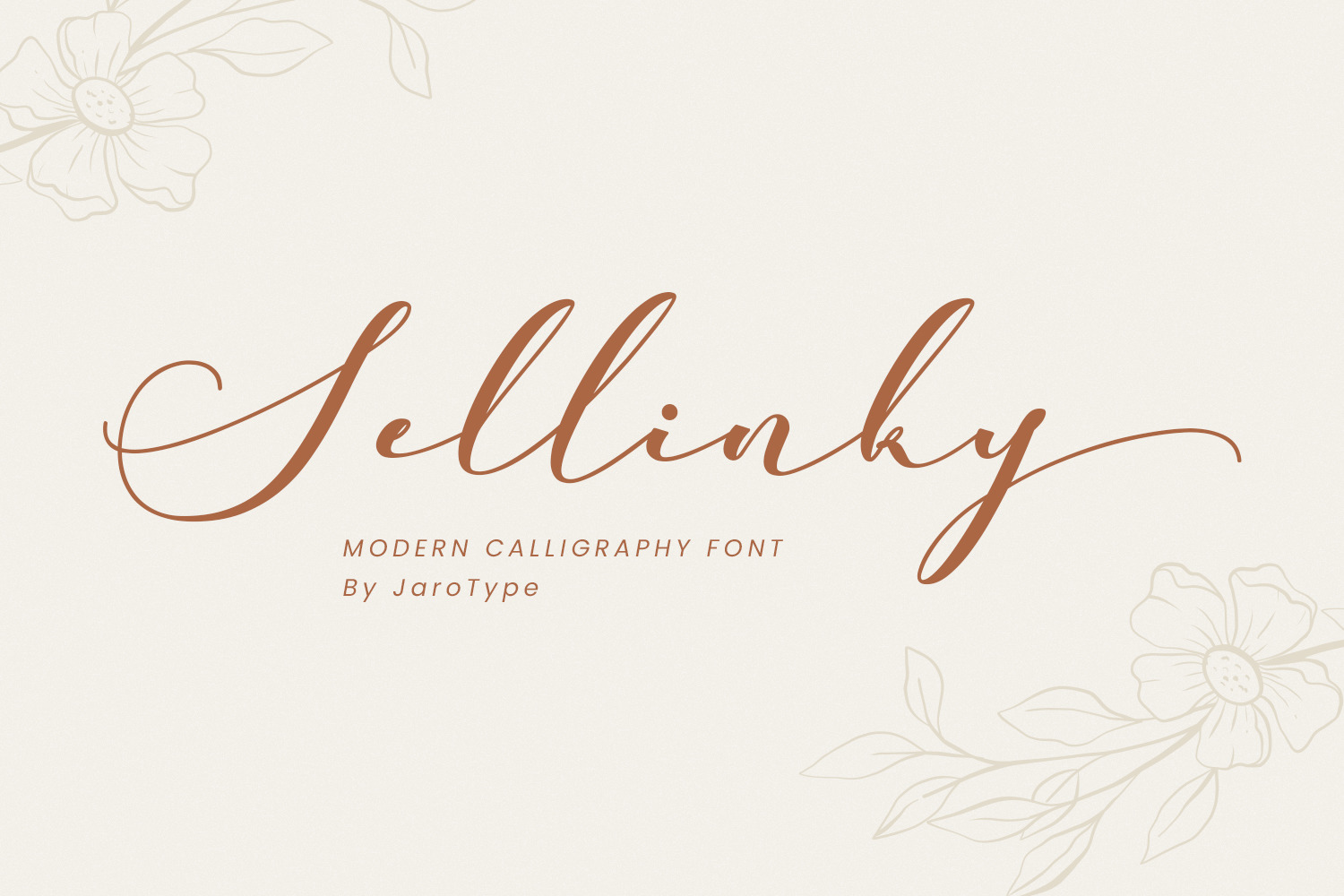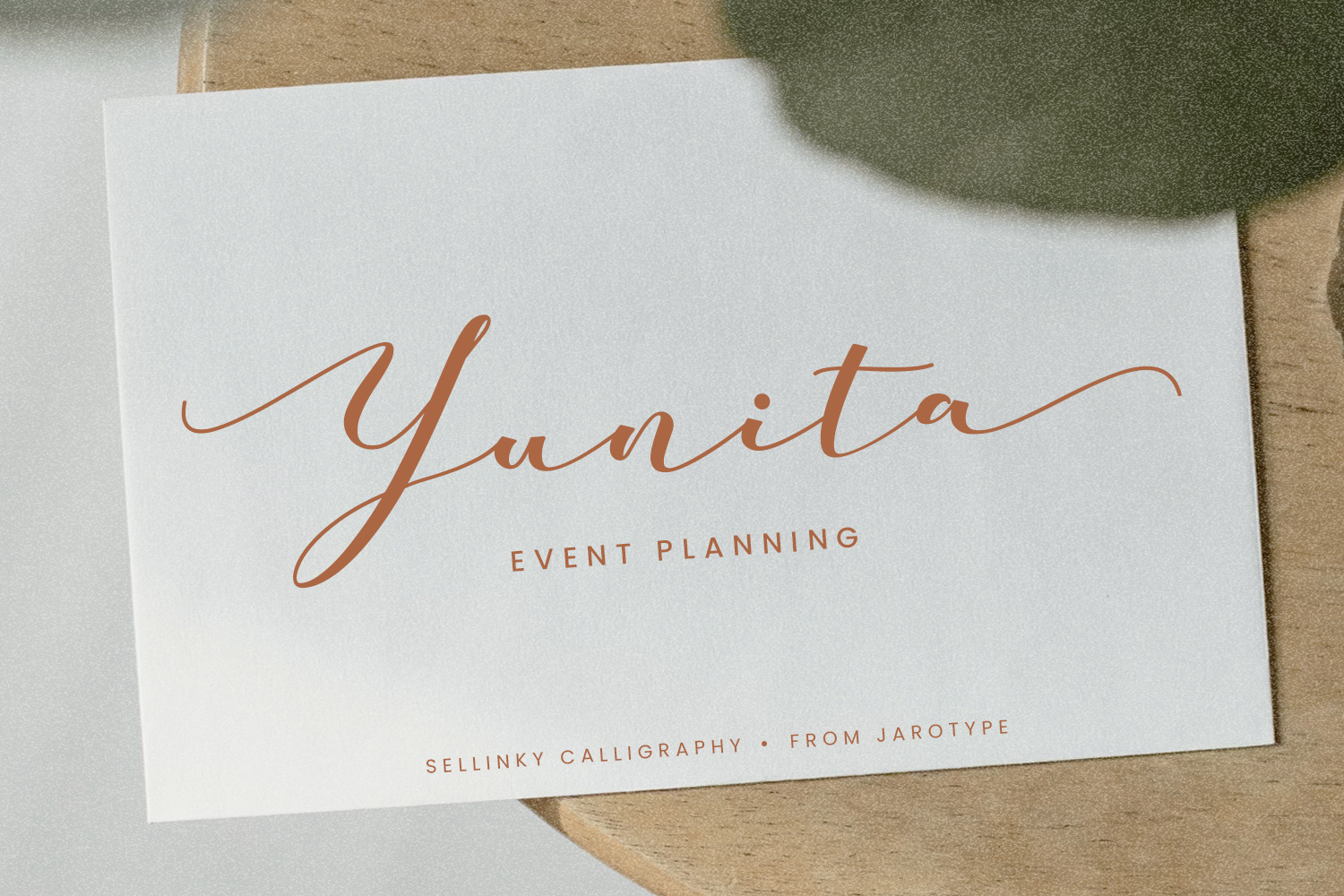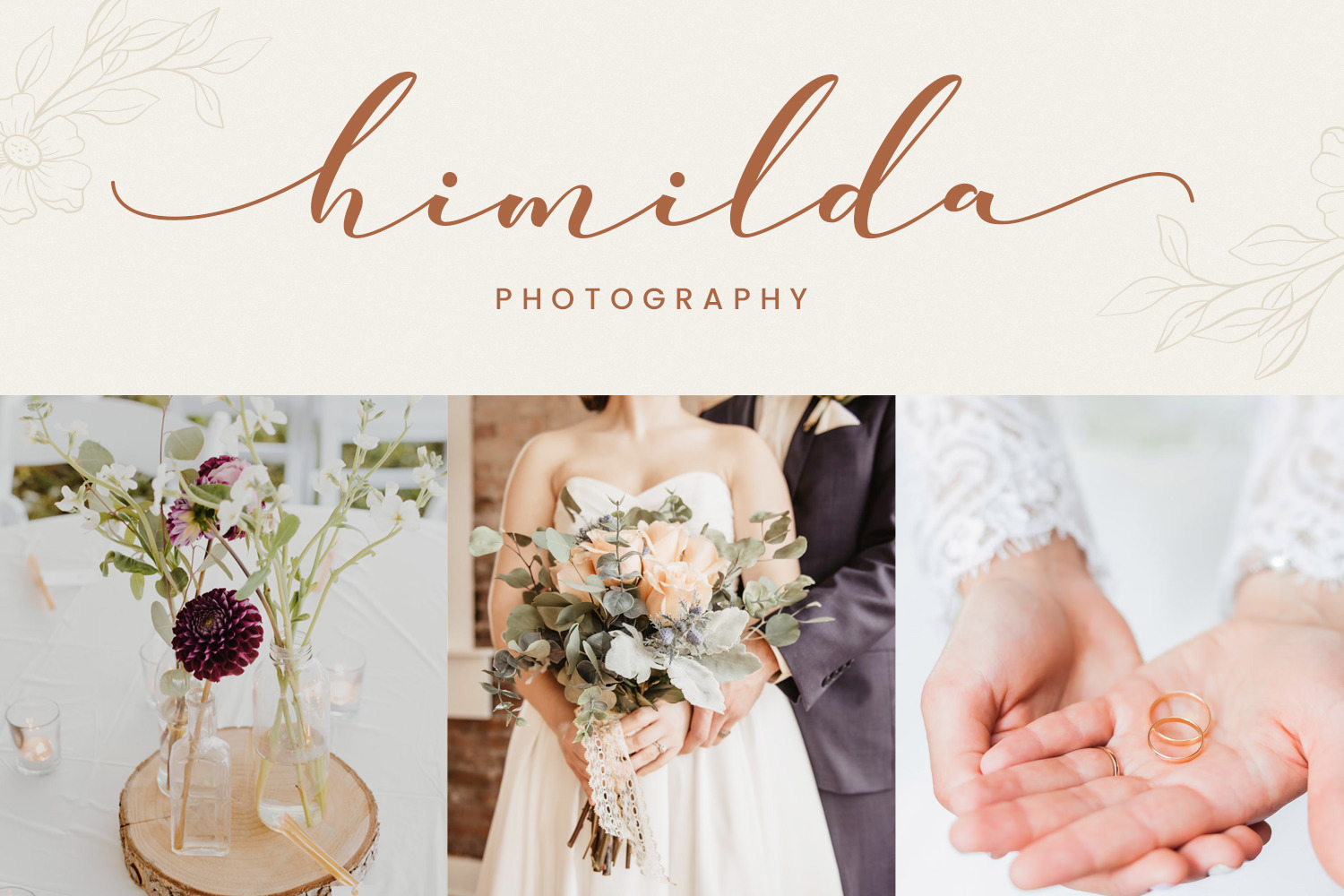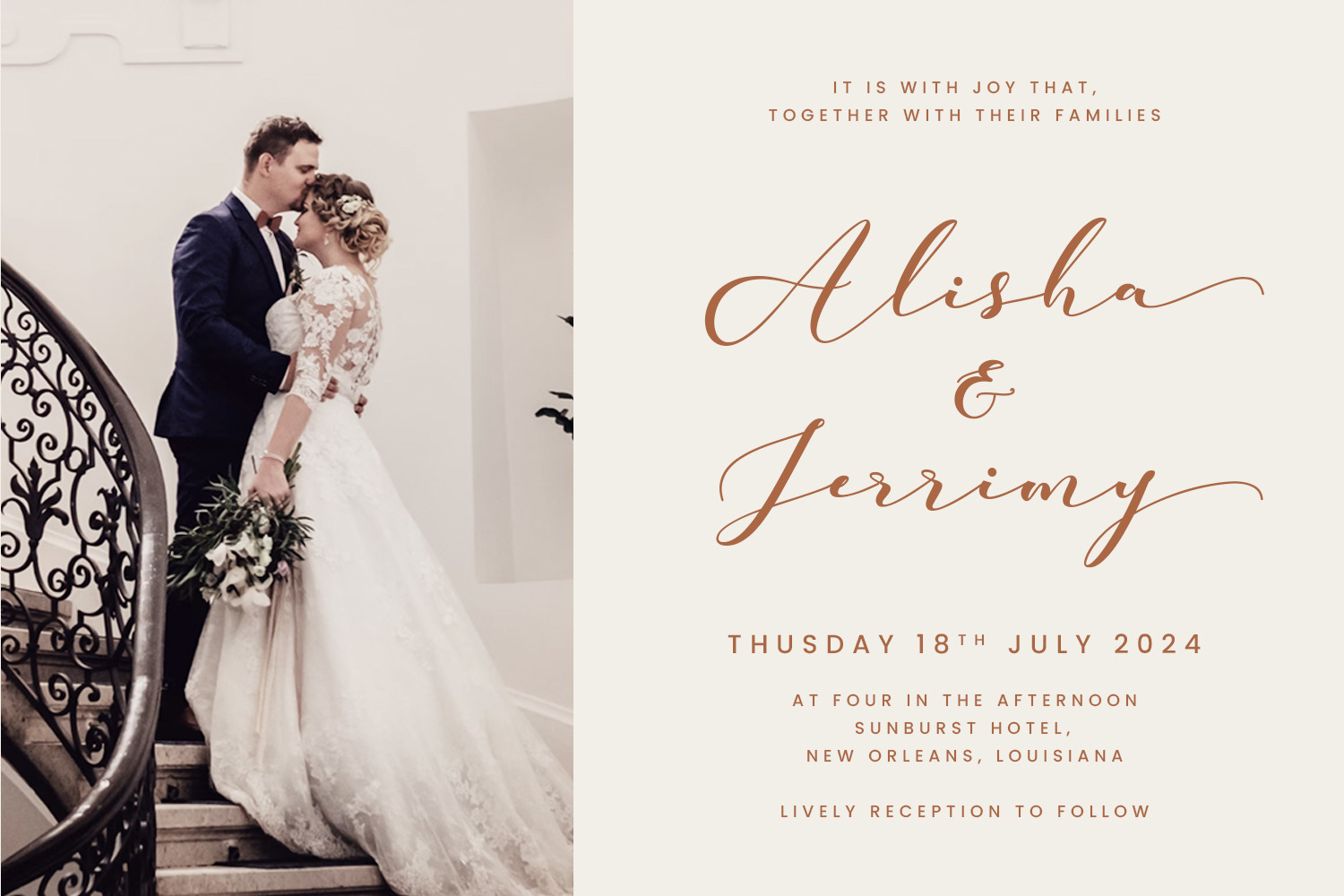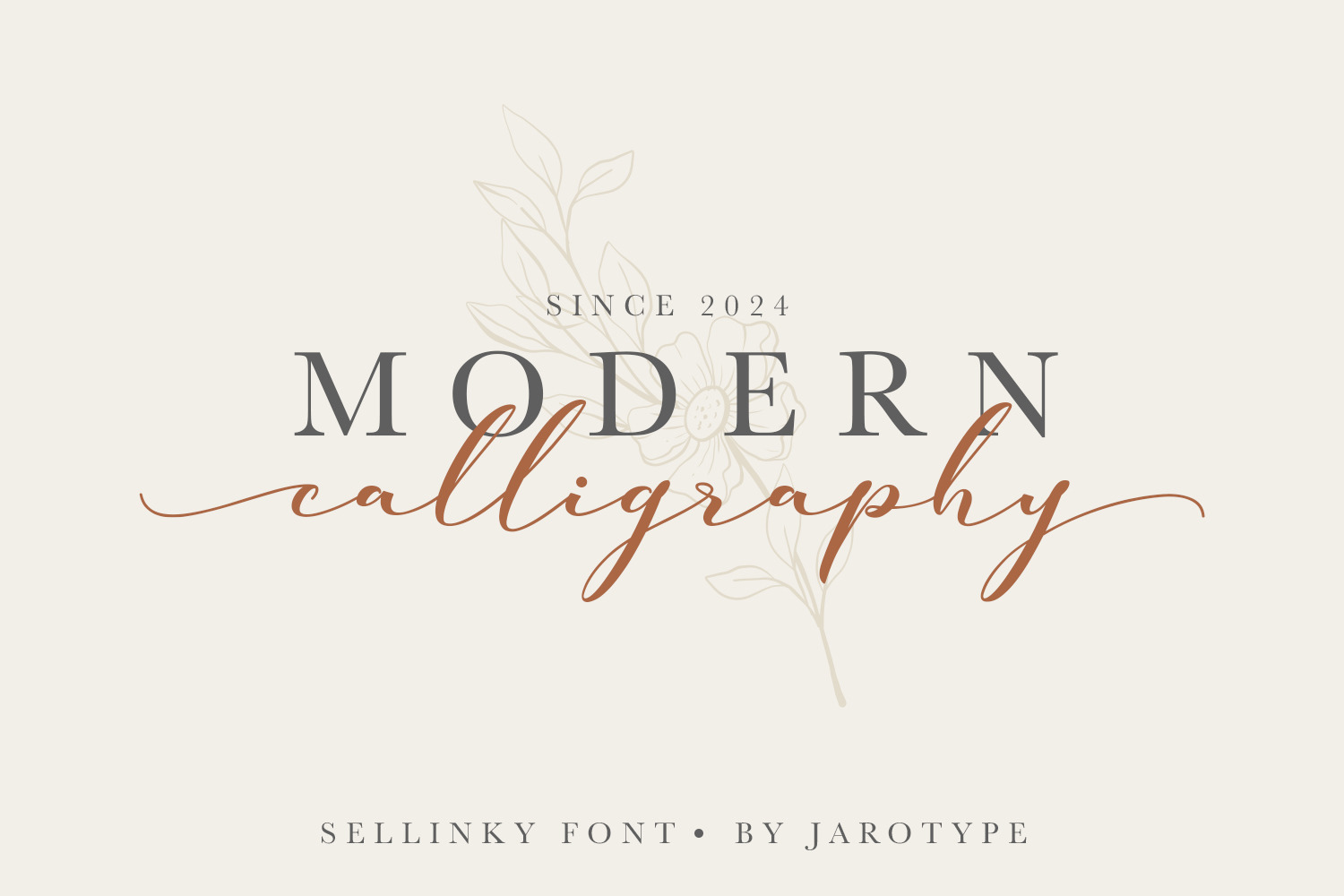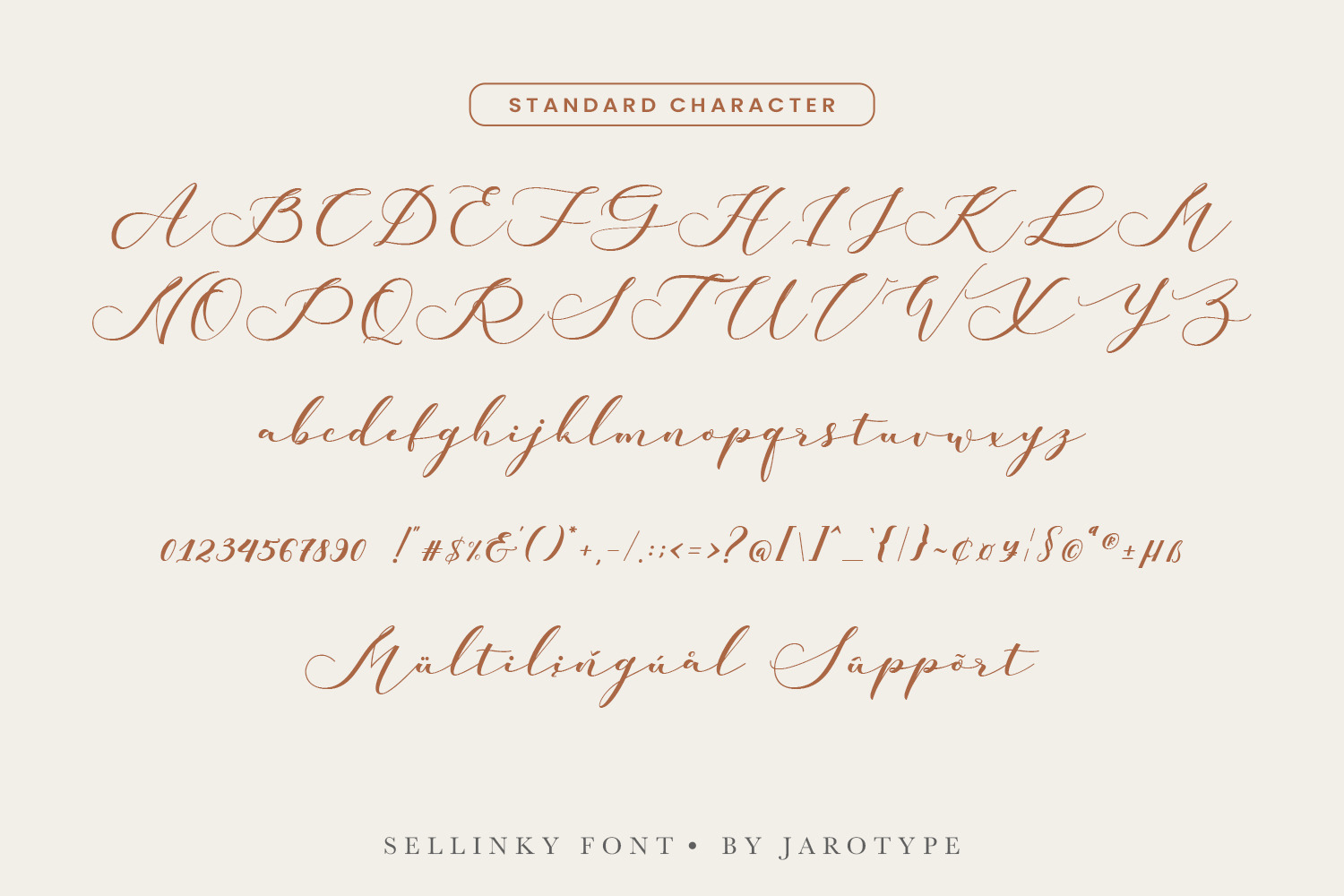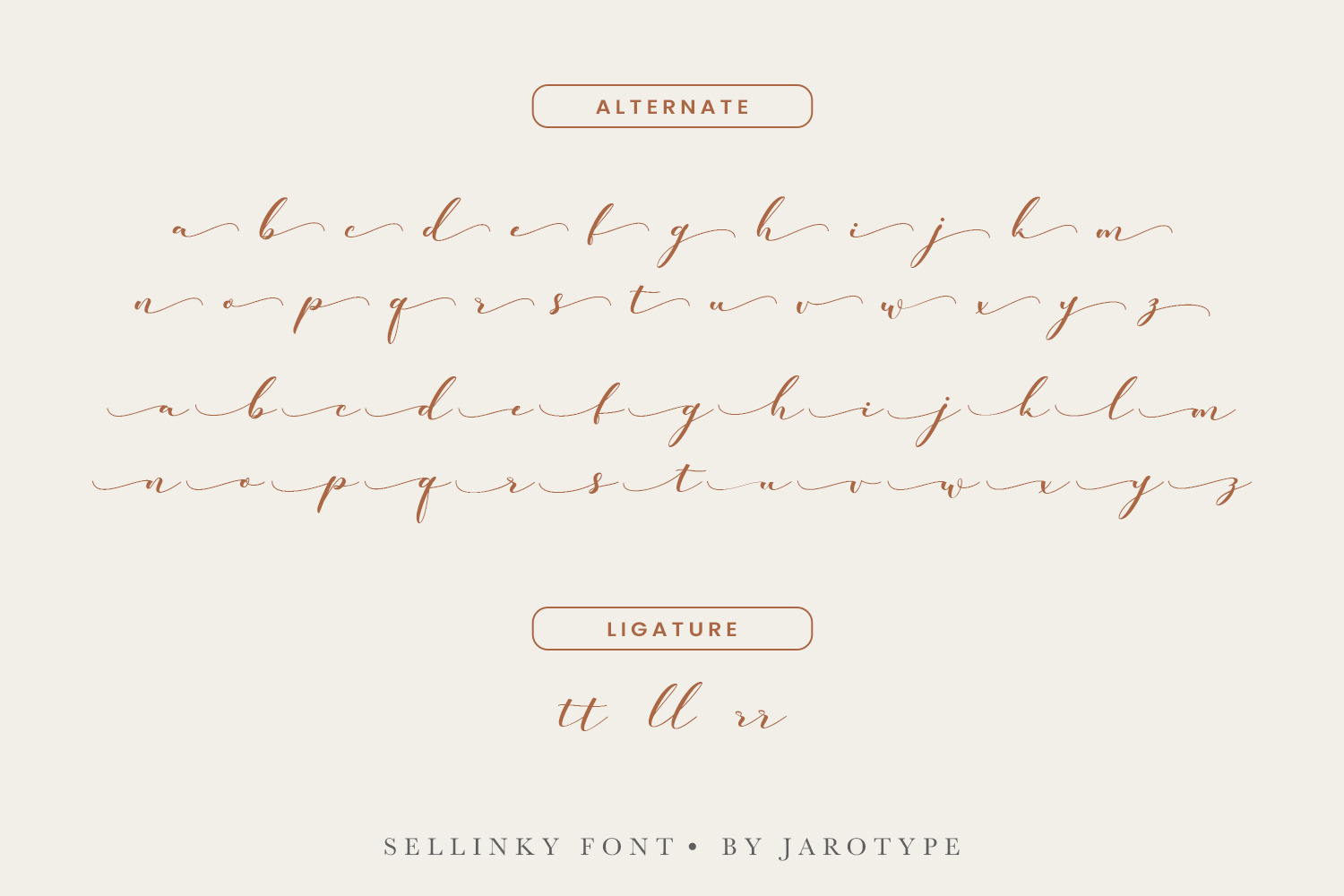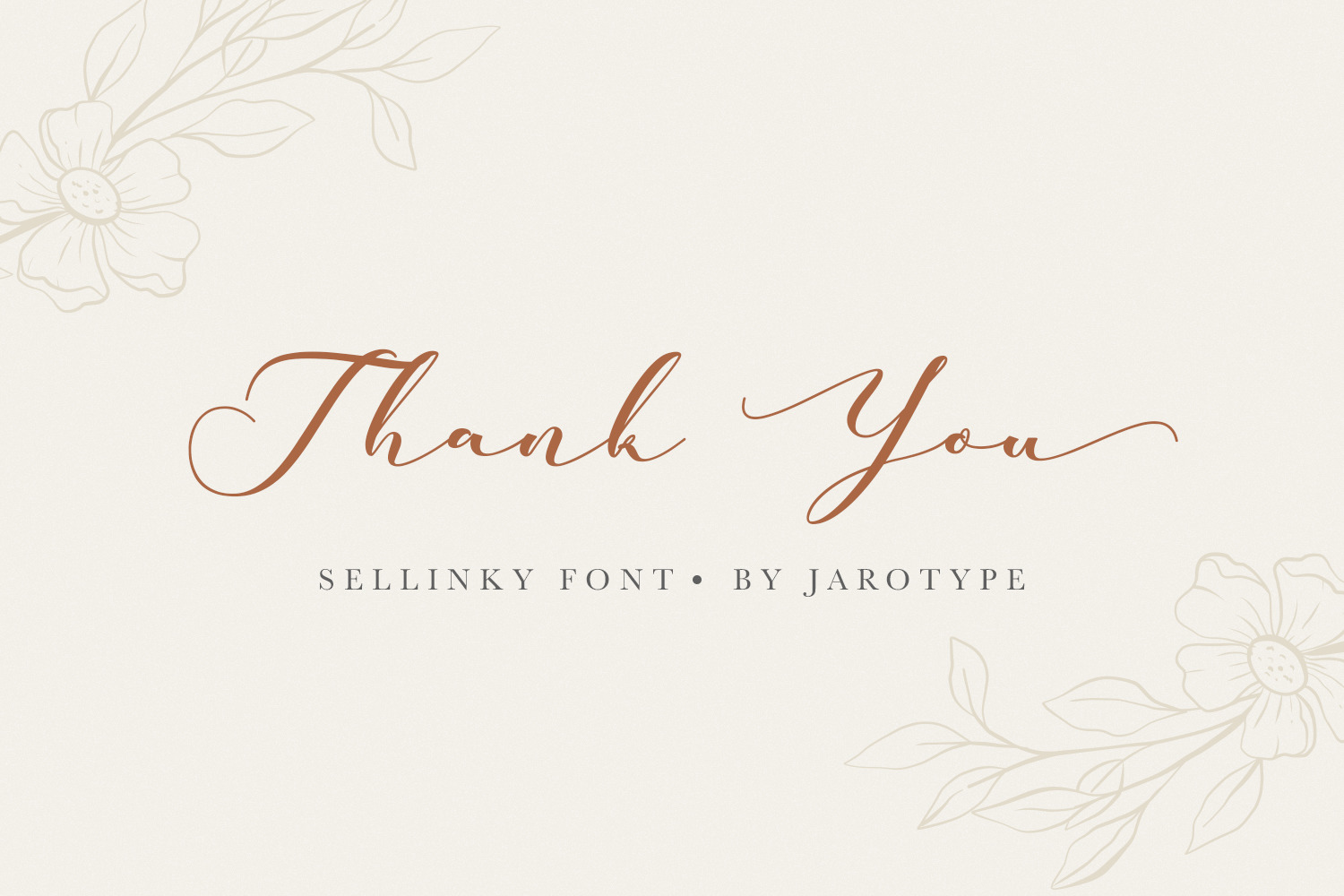
Sellinky Font
Introducing you my new modern calligraphy font - Sellinky that particularly well suited for wedding invitations, save the date cards and feminine branding.
Sellinky includes full set of Uppercase and Lowercase Basic Characters, Numerals and Punctuation. Also it contains ligatures and the stylistic alternates for lowercase characters to perfectly re-create natural calligraphy